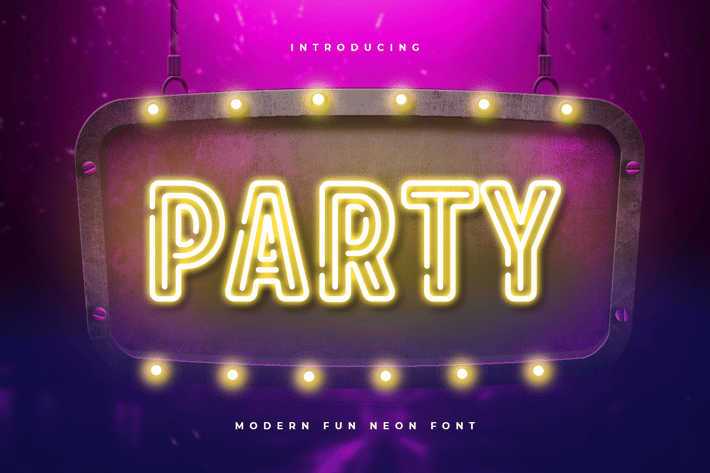
Party - Modern Fun Neon Font
Party is A Neon font for Event, Party, and Techno branding needs, with Fun style touch that you can combine to get any variations and unique shapes easily just in seconds with choose alternates of them. It is a serif display font with moderate contrast that perfect for branding projects, logo, wedding designs, social media posts, advertisements, product packaging, product designs, label, photography, watermark, invitation, stationery, and any projects, it makes with a high level of legibility.